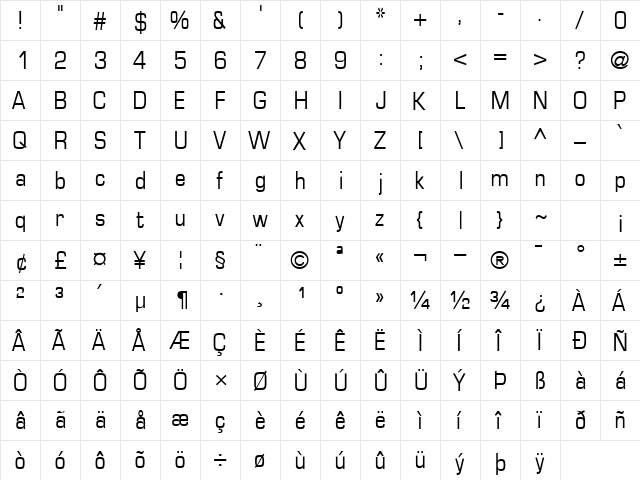
PalindromeCondSSK Regular
Design Context for PalindromeCondSSK Typeface
PalindromeCondSSK takes a measured approach to typography — its balanced proportions and neutral character make it a reliable workhorse for both digital and print work. Its narrow stance lets it pack a punch even in space-constrained designs.